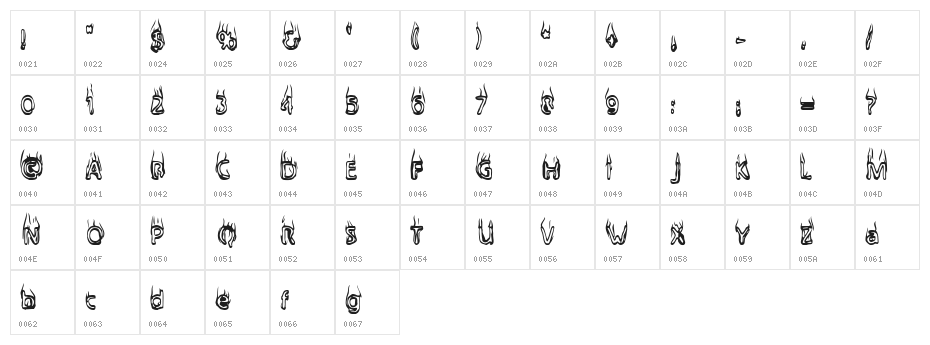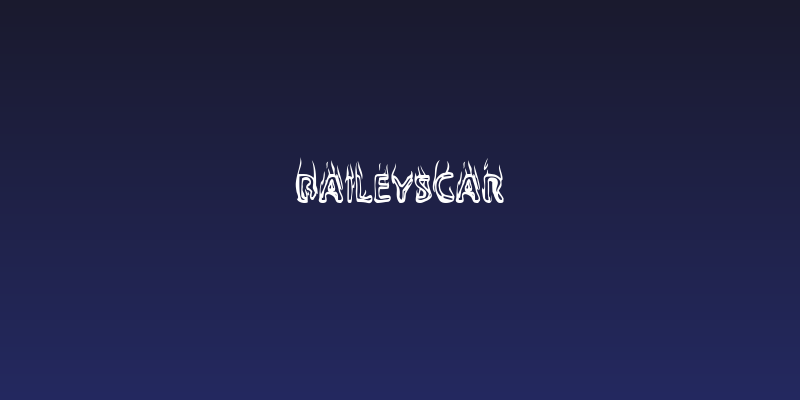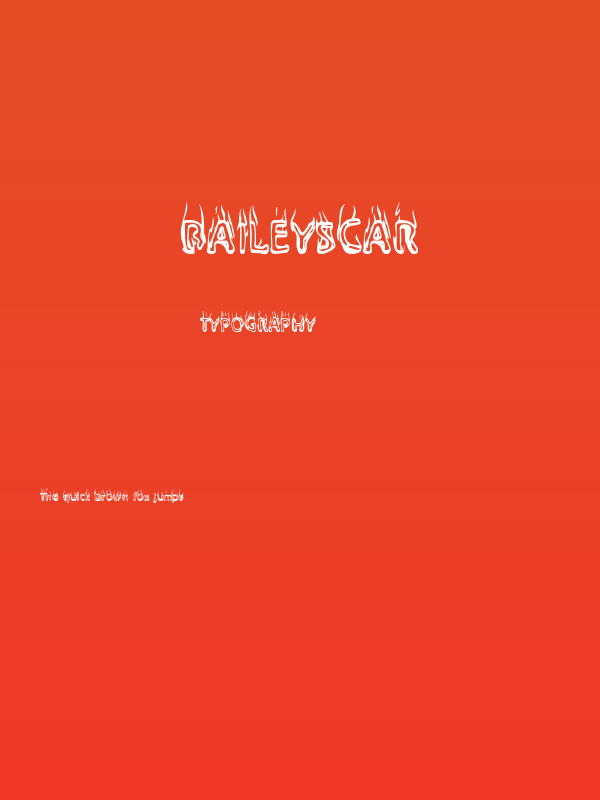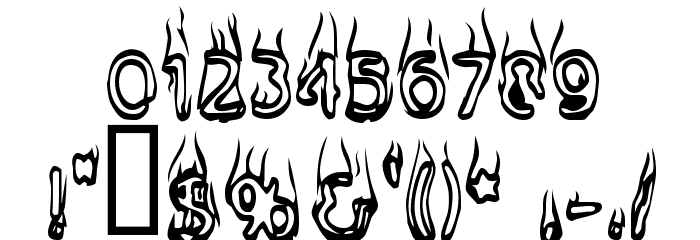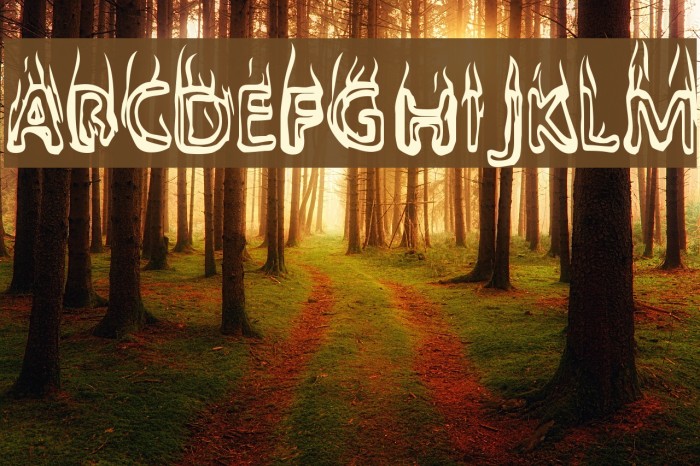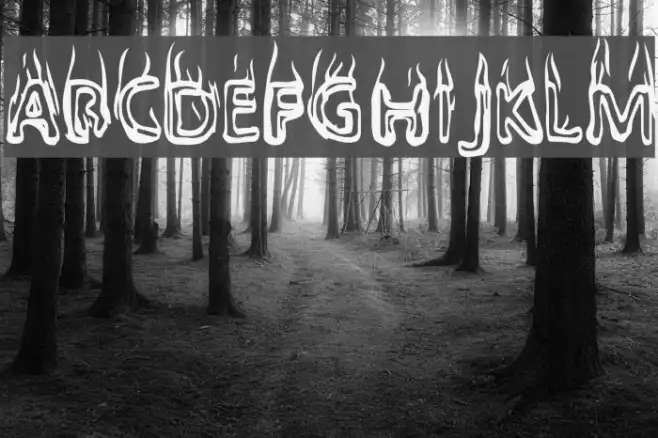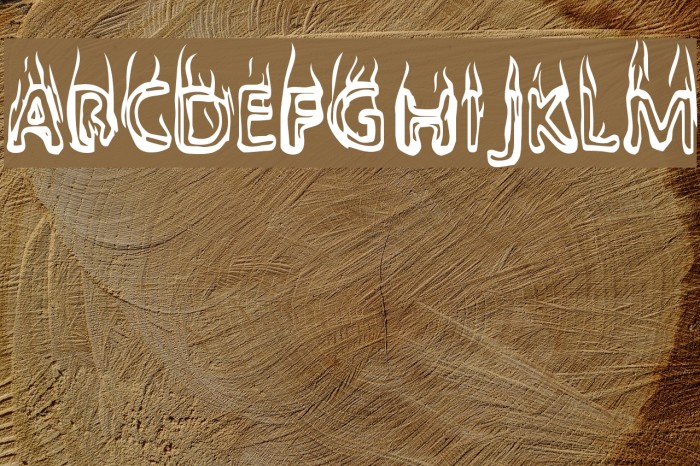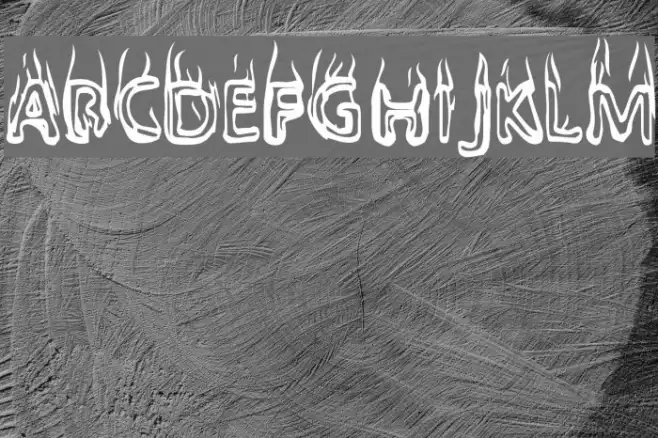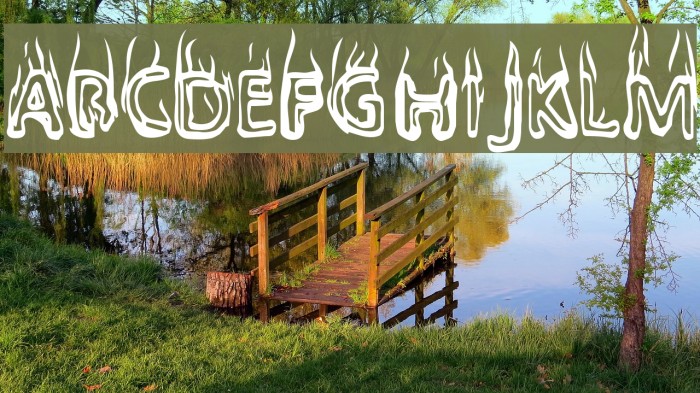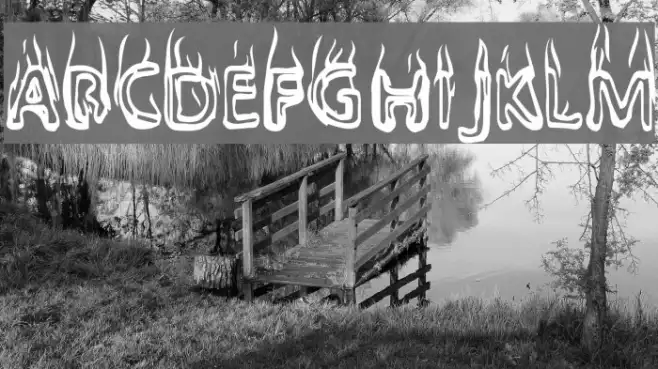
BaileysCar Font
This font features a bold and dynamic design with flames extending from the top of each character, giving it a fiery and energetic appearance. The letters are uppercase and lowercase, with a consistent flame motif that adds a sense of movement and intensity. The numbers and special characters follow the same theme, ensuring a cohesive look across all elements. The strokes are thick, providing a strong visual impact, while the flames add a decorative touch that makes the font stand out.
| Proposed Projects | Ideal for projects that require a dramatic and eye-catching design, such as event posters, music album covers, or branding for extreme sports. |